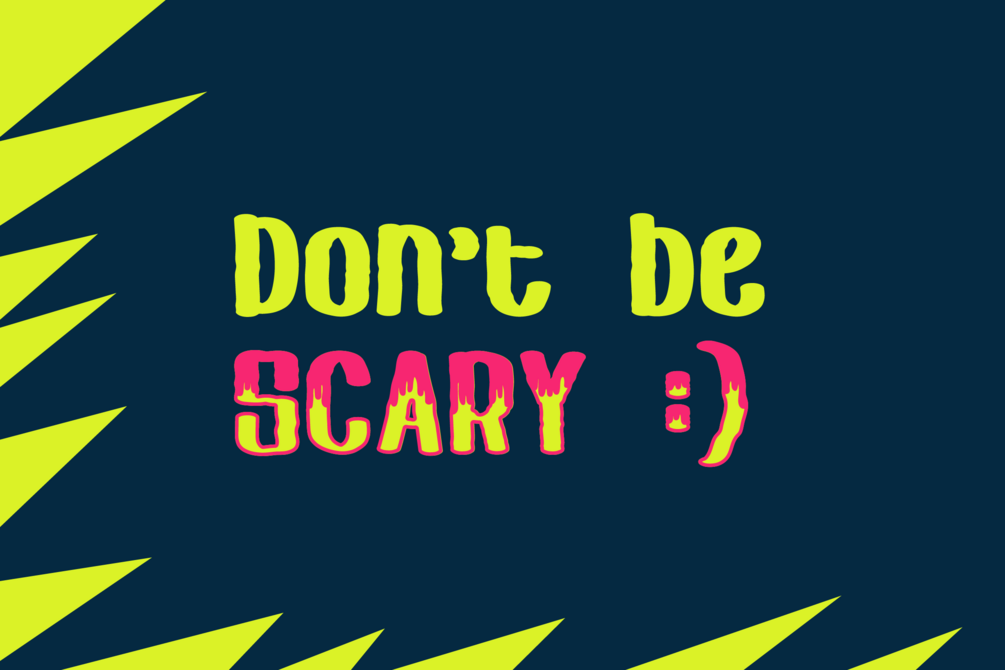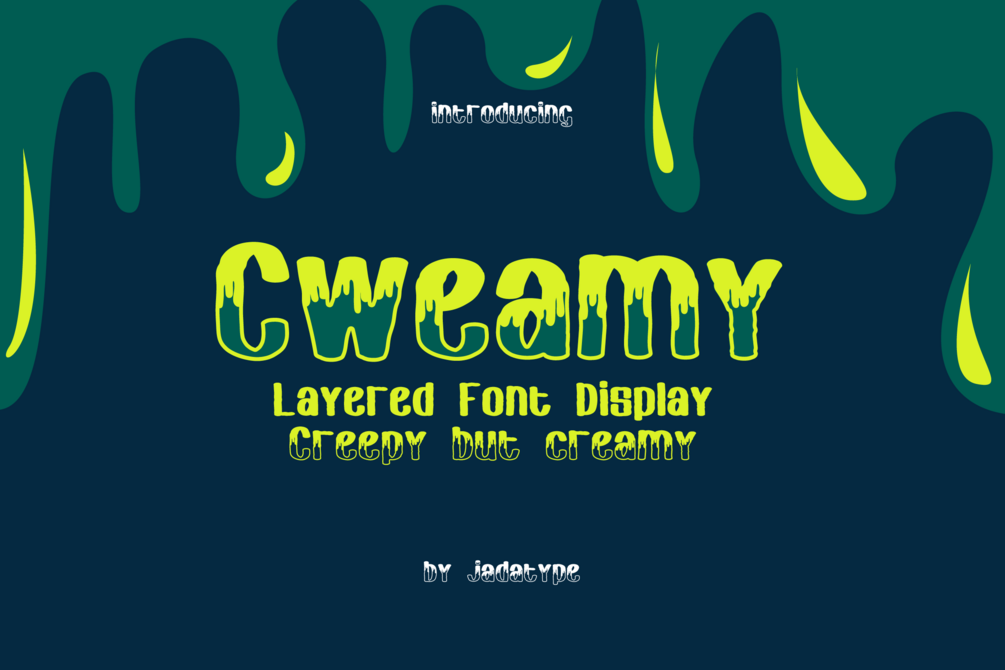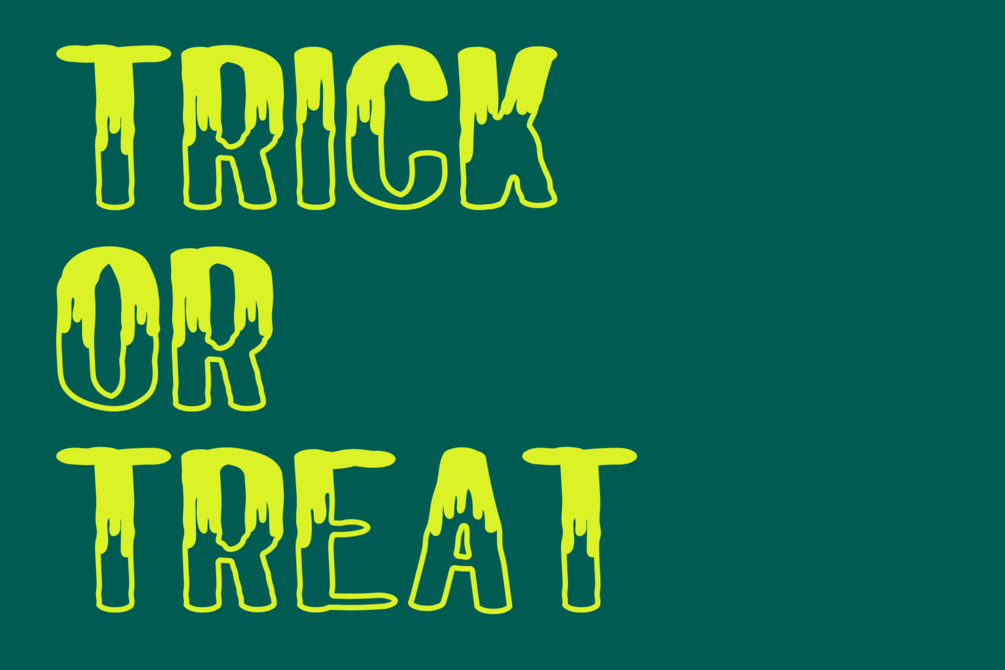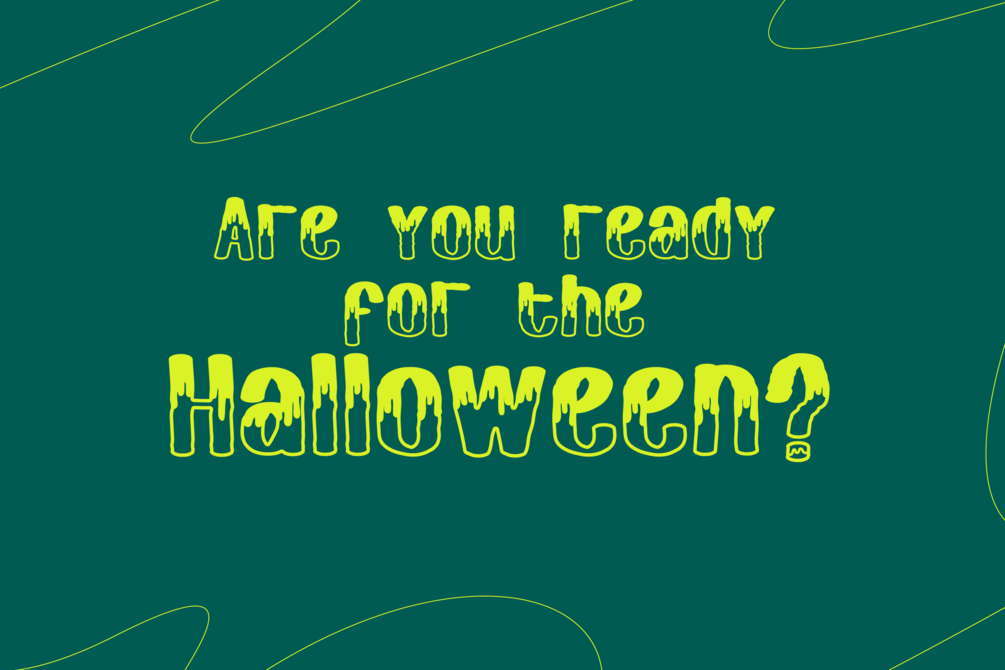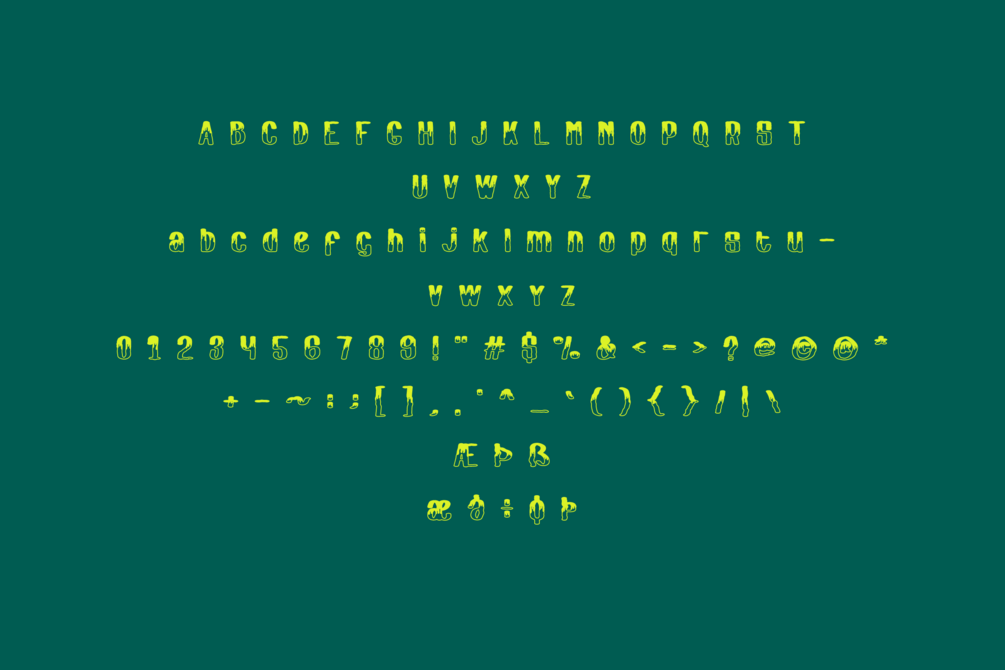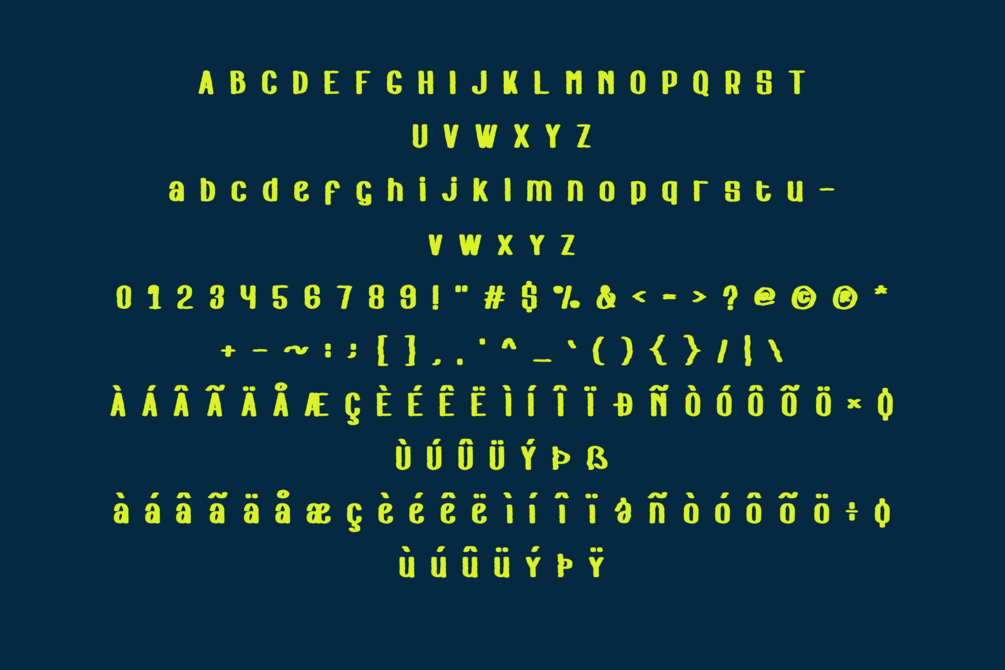
Cweamy Font
Cweamy is a display font that comes with a fun layered style. suitable for tshirt, branding, social media, and so on. contains standard English letters, numbers, punctuation, and several accents that support multilingualism.